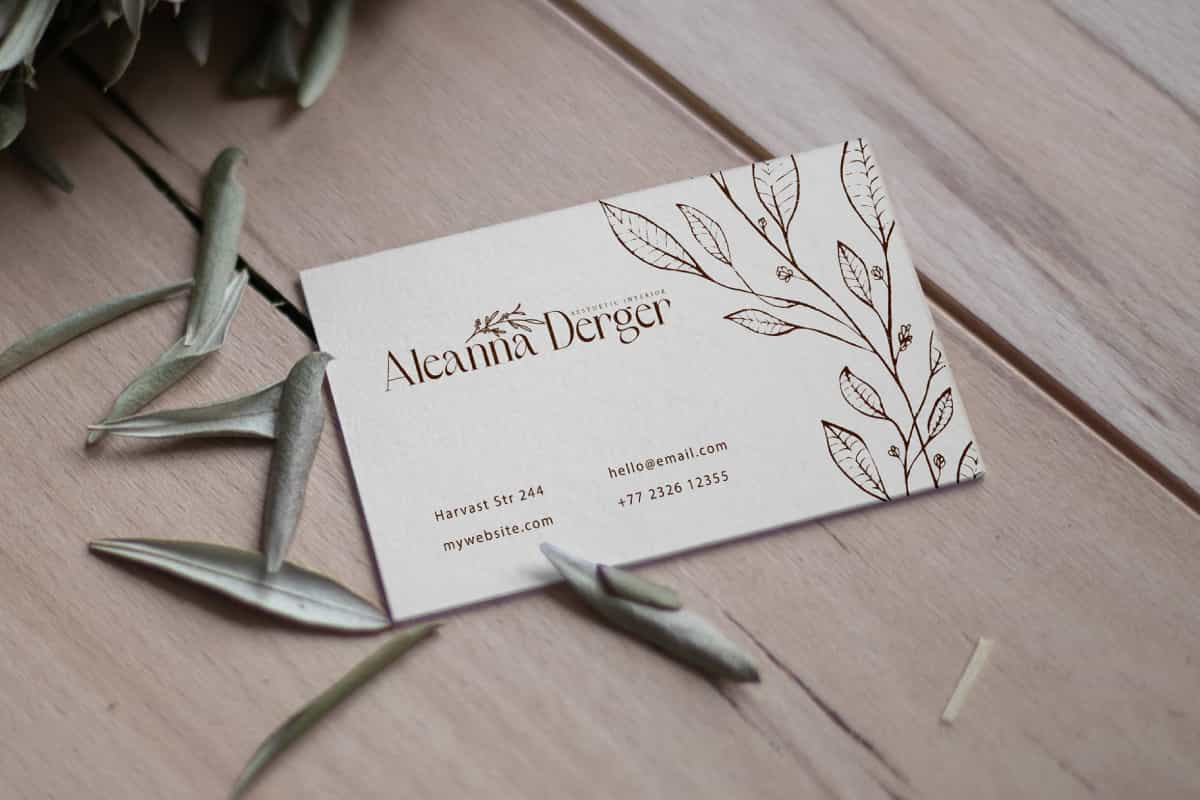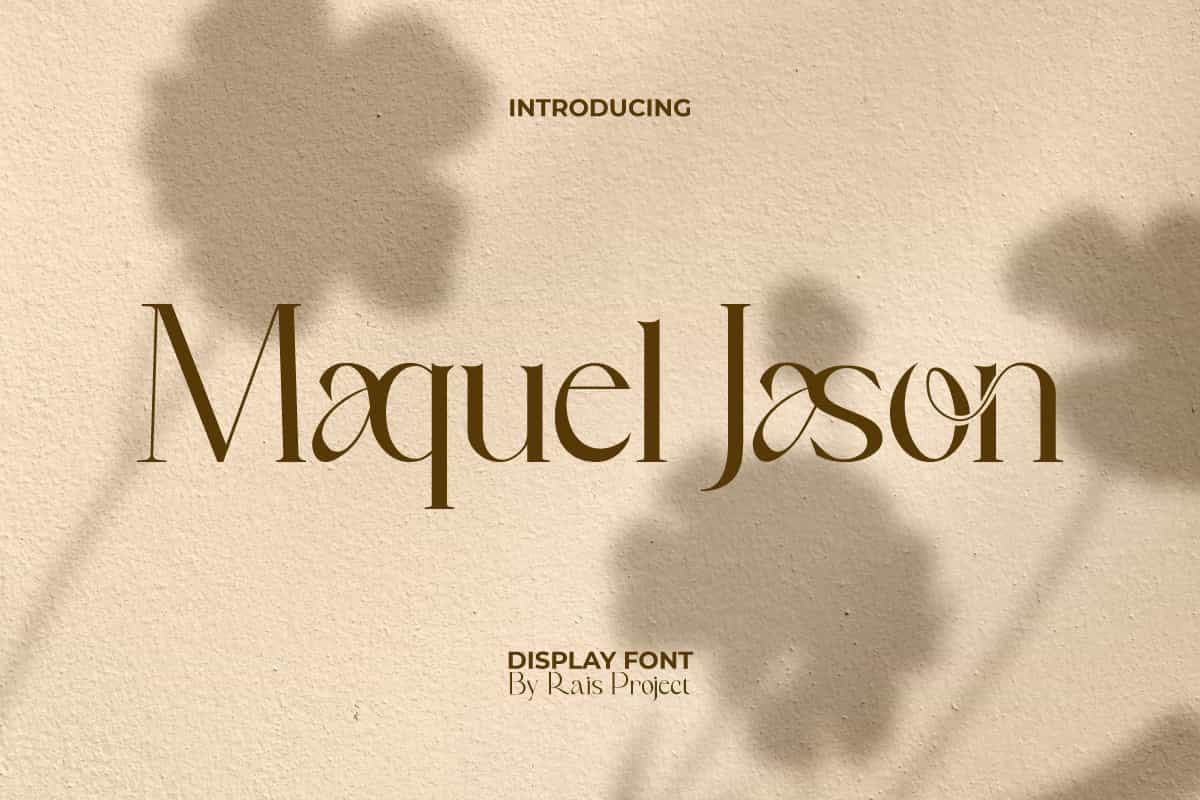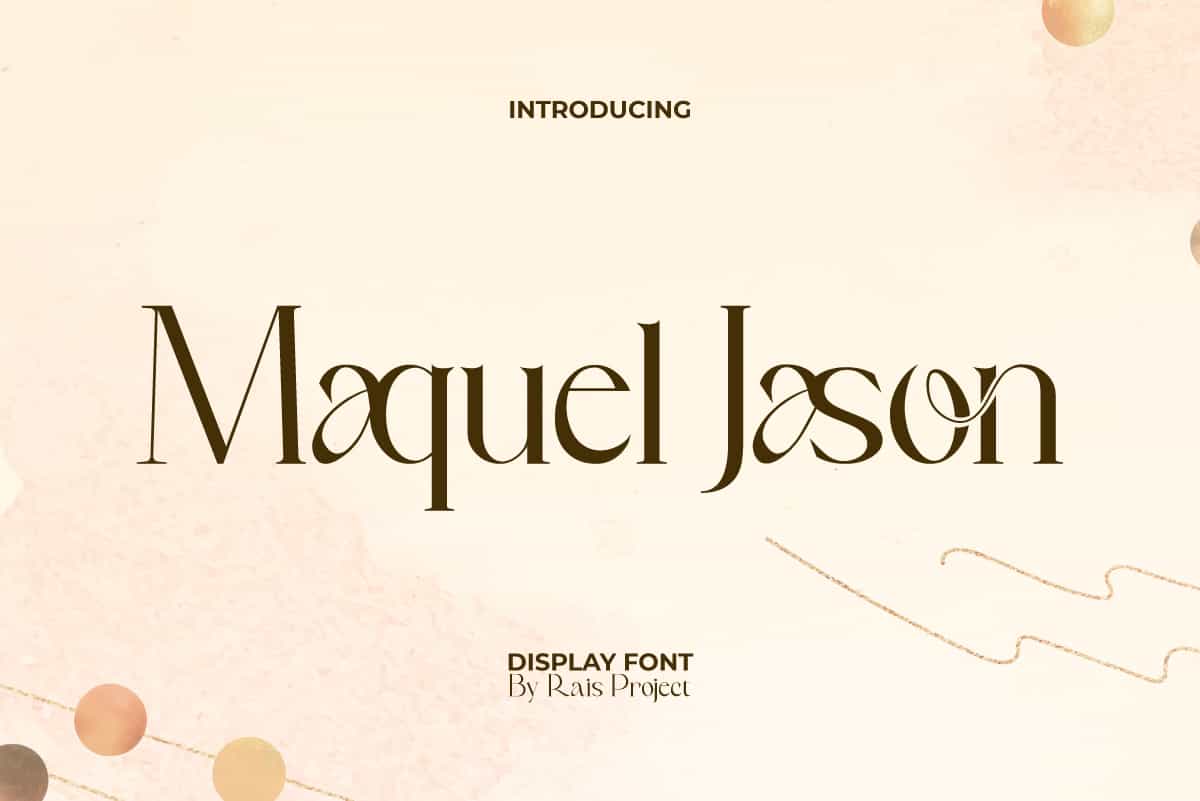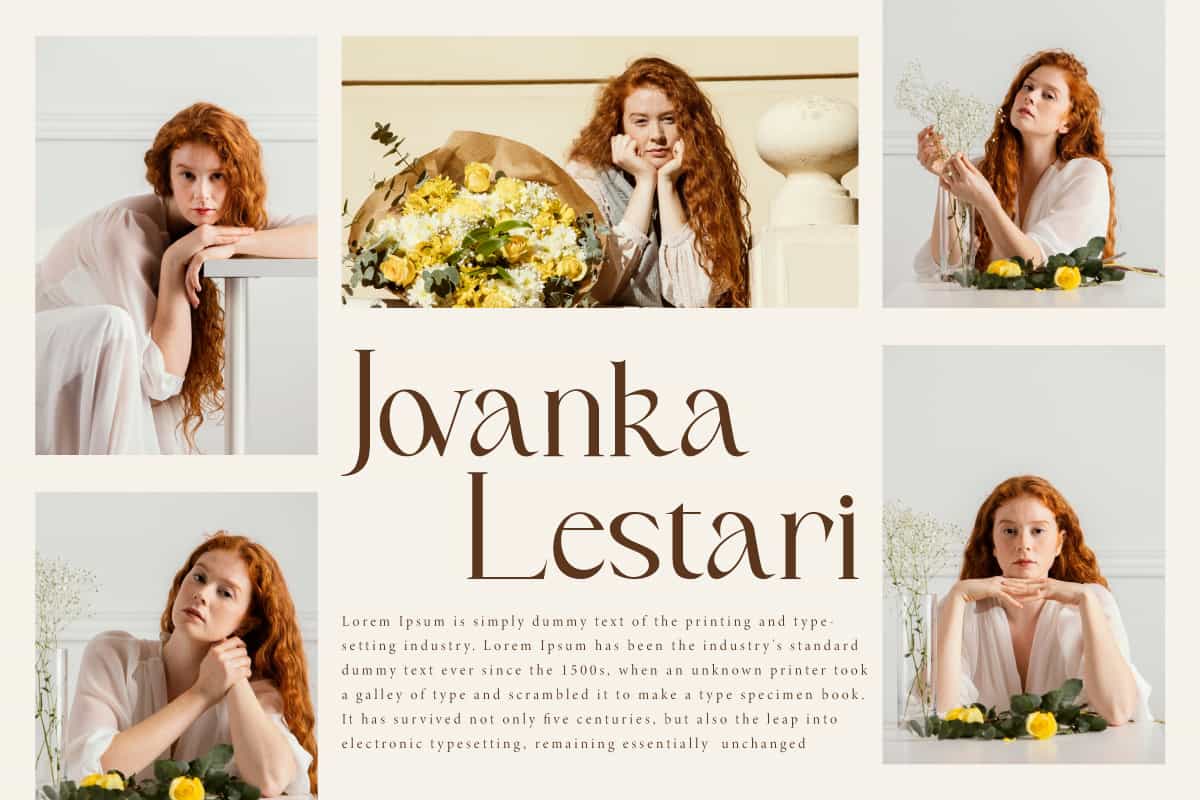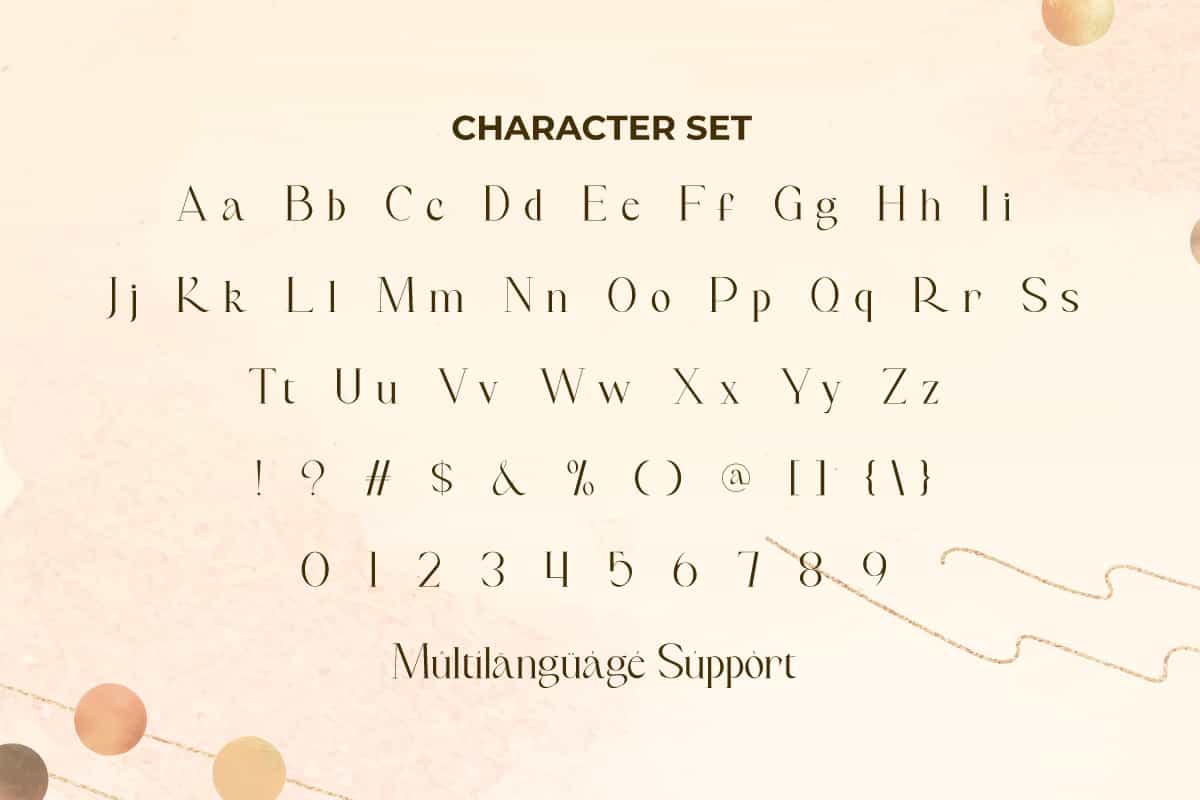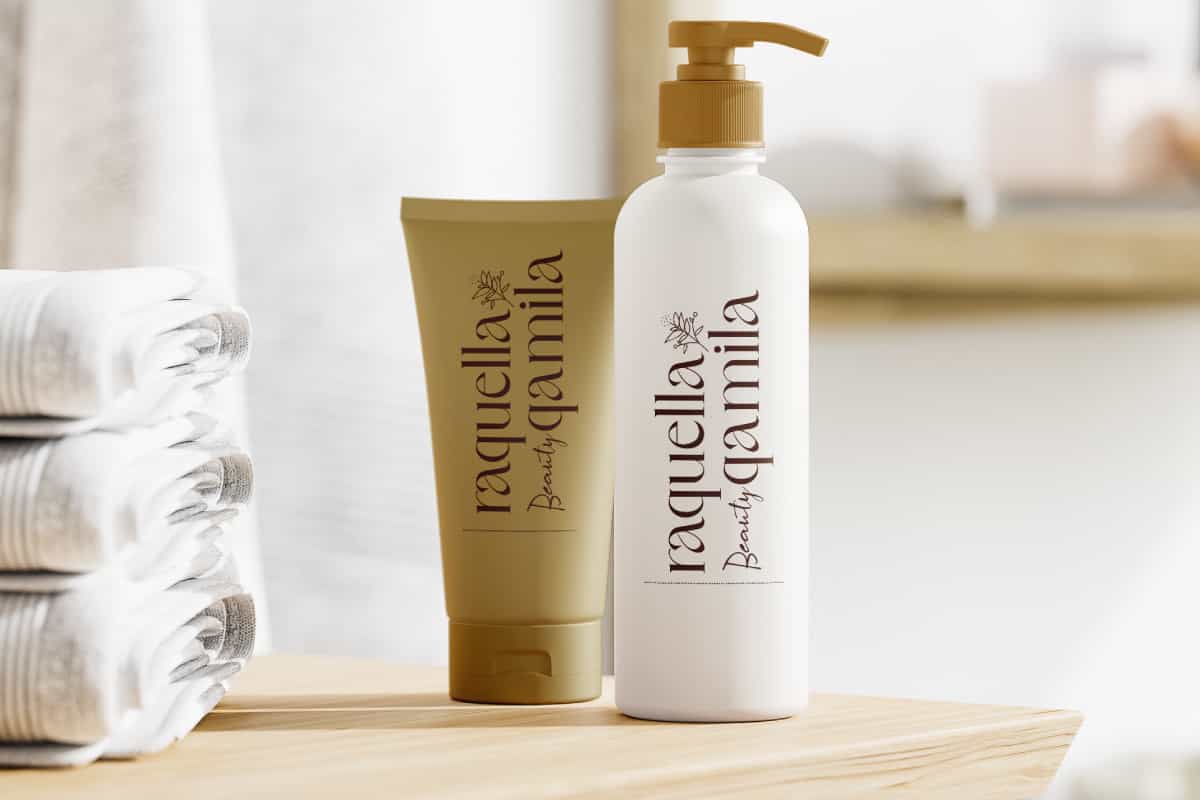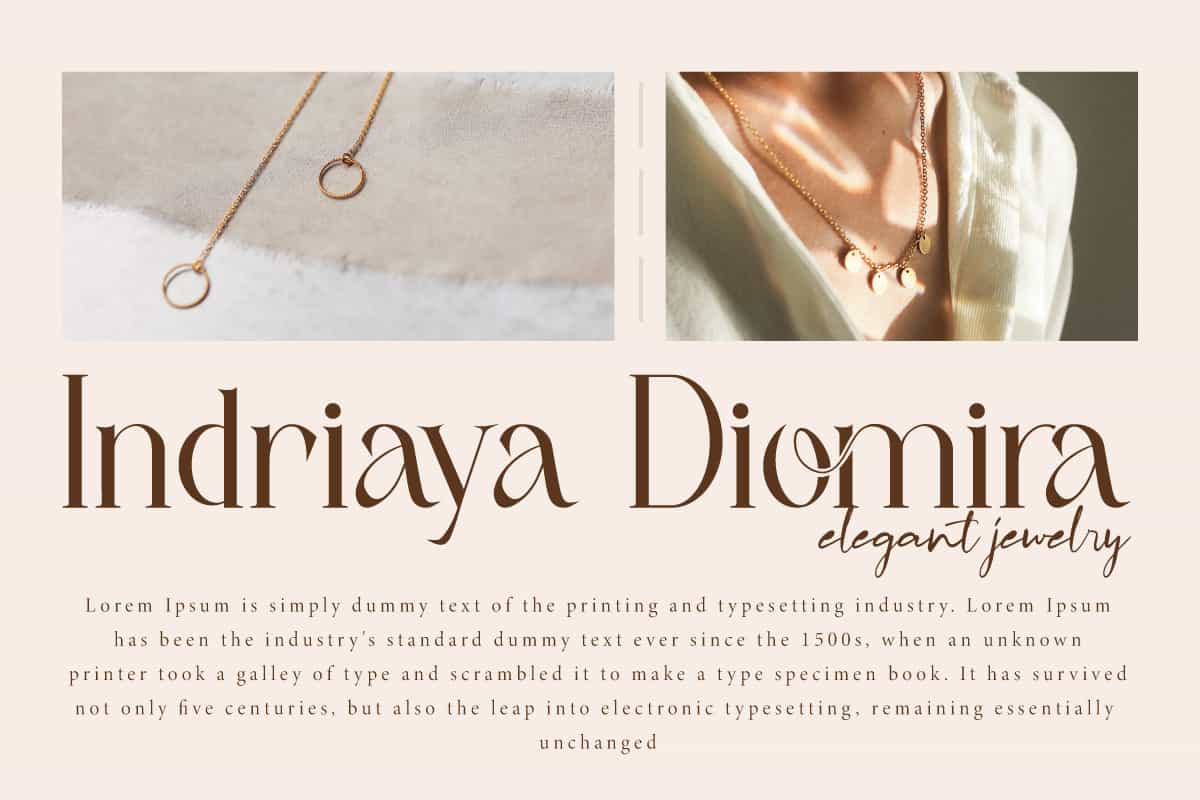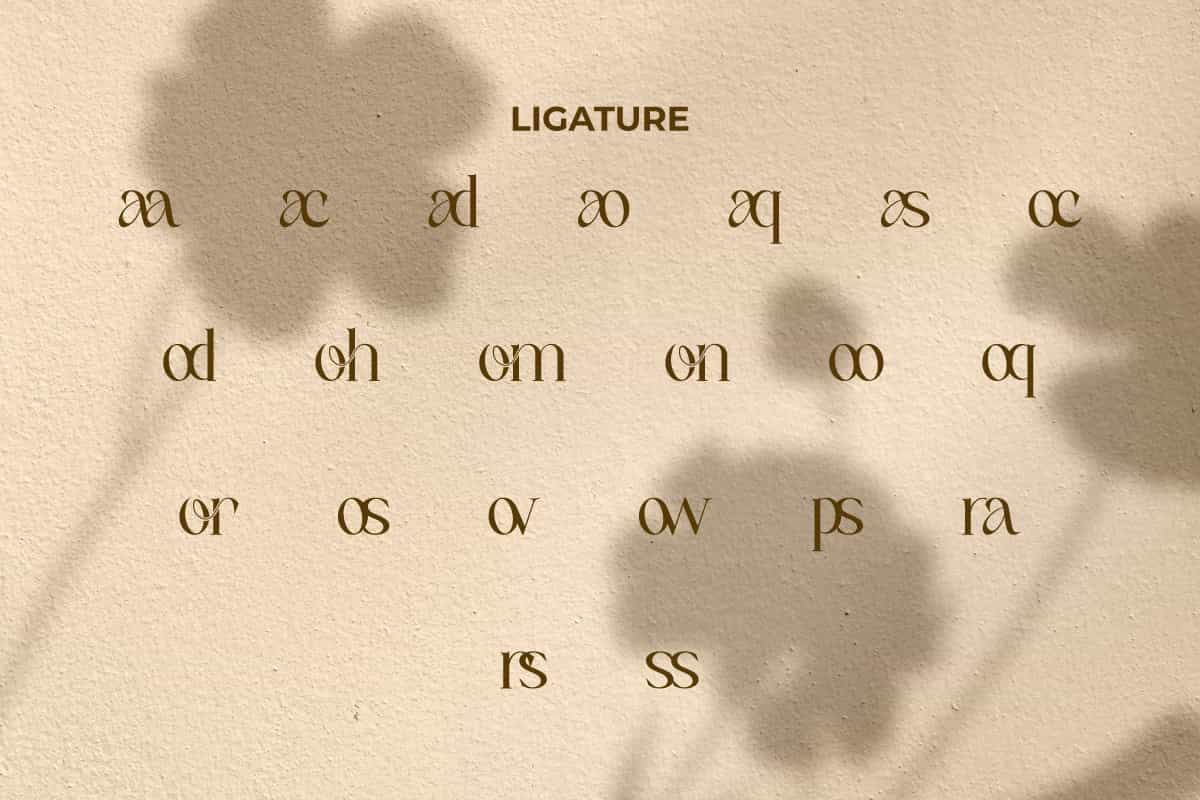
Maquel Jason Font
Maquel Jason Font is a luxurious and charming display font that will make your designs looks fancy!
Maquel Jason Font is a beautiful and modern serif display font, by RaisProject. This font is well designed so that it can make your design radiate luxurious beauty. It will be perfect for any designs, such as stationery, invitation, custom design, brand image, cover, signage, label, poster, product packaging, quotes, web, and more!
Maquel Jason Font includes a full set of Uppercase and Lowercase Letters, Numerals, Punctuation, Symbol, and Ligature characters. This fancy font will be suitable for various industries, such as fashion, beauty product, accessories and jewelry, advertisement, event or wedding organizer, florist, homeware, perfume, photography, printing, publishing, real estate, etc.